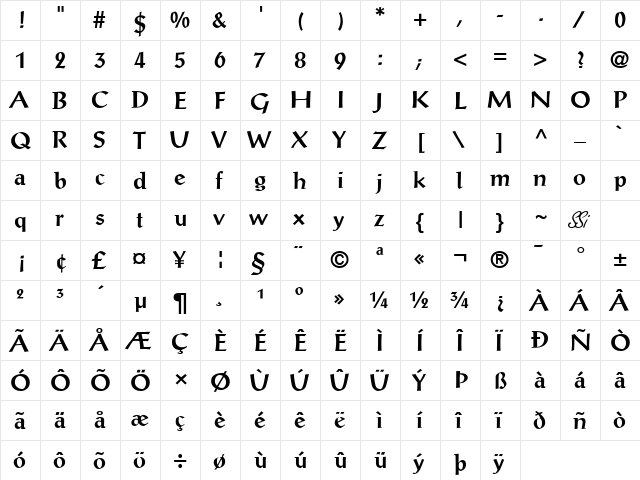
Antiqua SSi Bold
Design Context for Antiqua SSi Typeface
Antiqua SSi takes a measured approach to typography — its balanced proportions and neutral character make it a reliable workhorse for both digital and print work. Its bold stroke weight gives it real presence on the page.